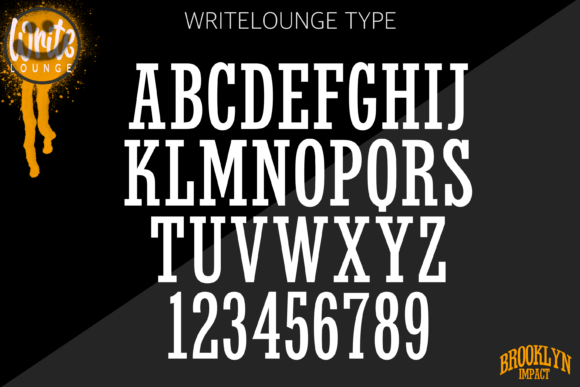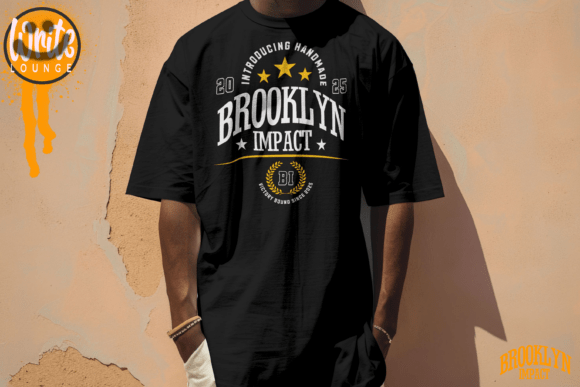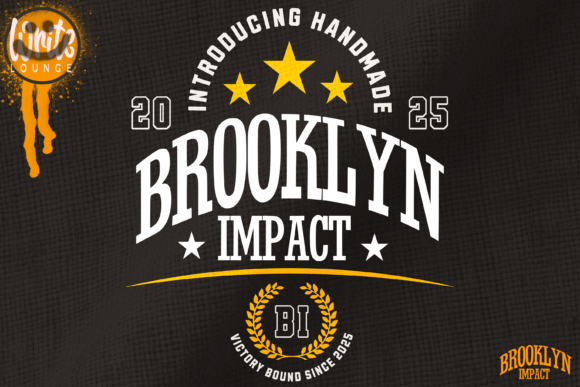
Brooklyn Impact Font
Brooklyn Impact is a bold, all-uppercase college varsity font designed for sports, team branding, and bold statement designs. Inspired by classic university lettering, this typeface brings a strong, athletic, and dynamic feel to any project.